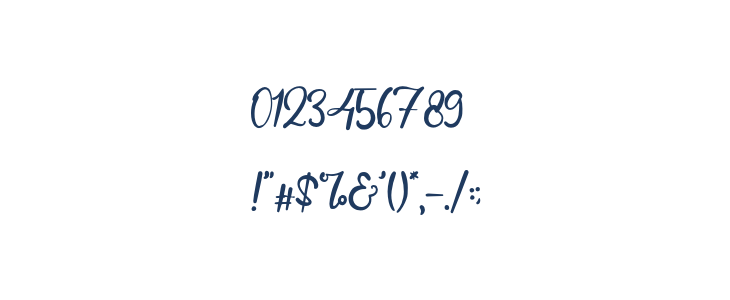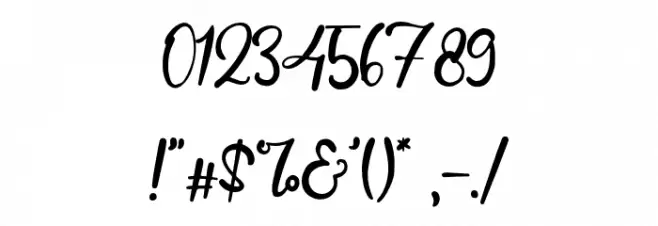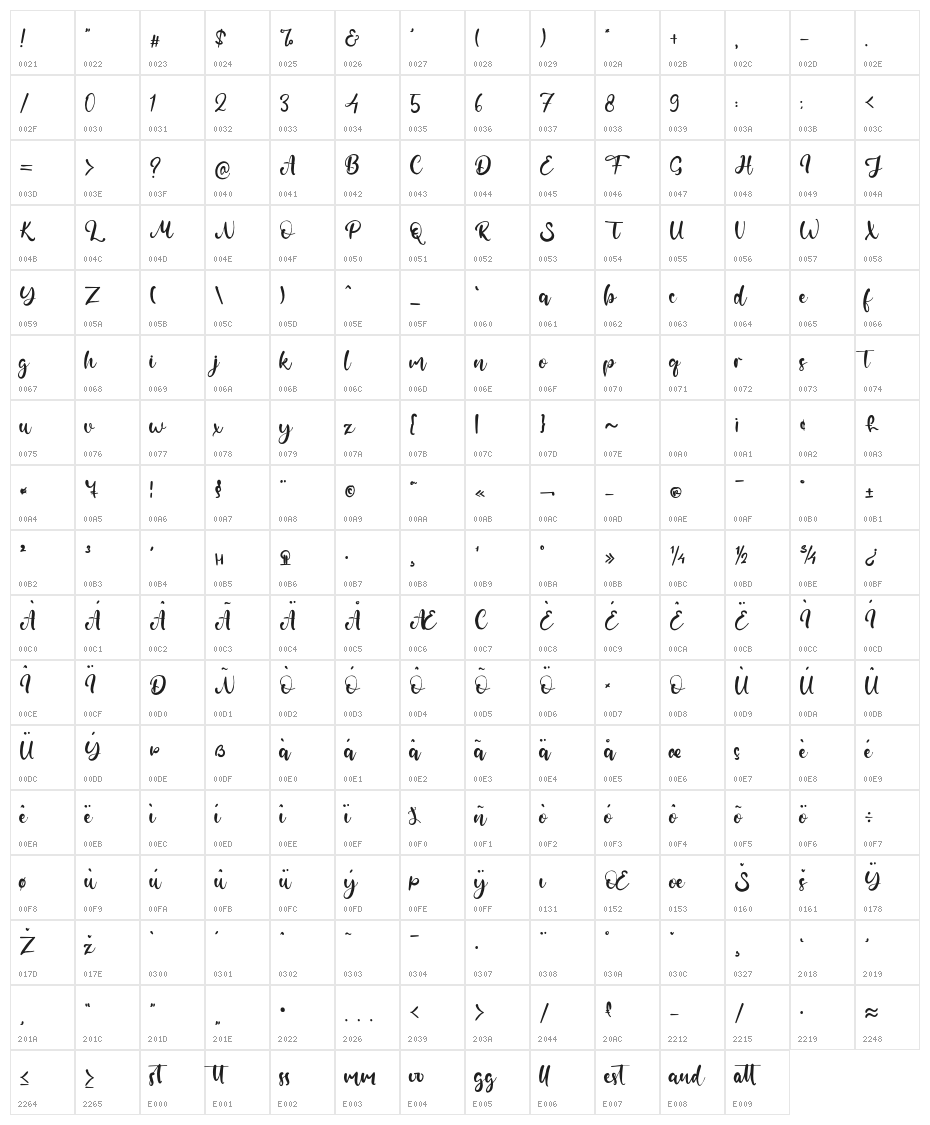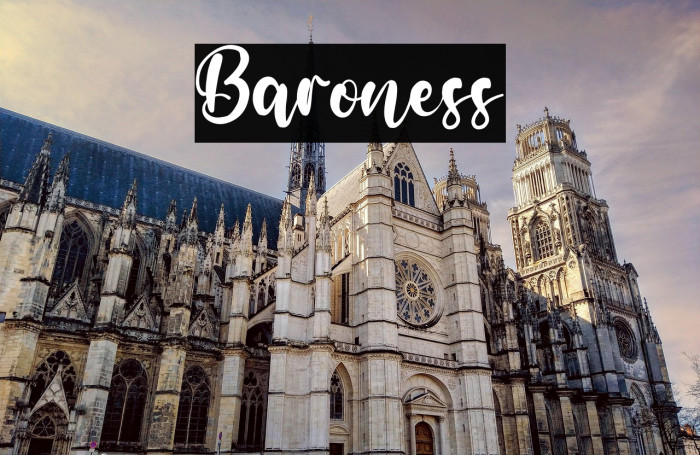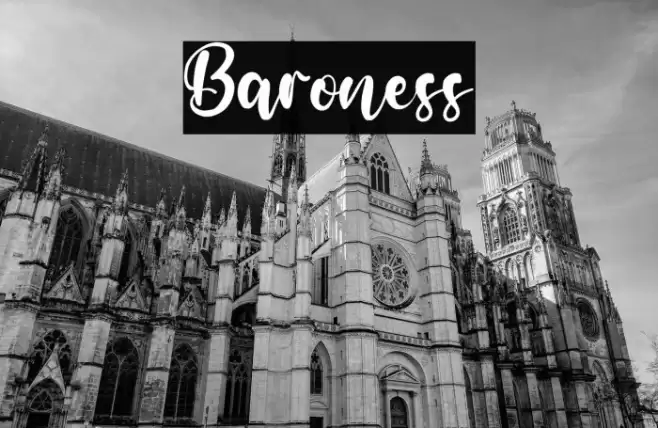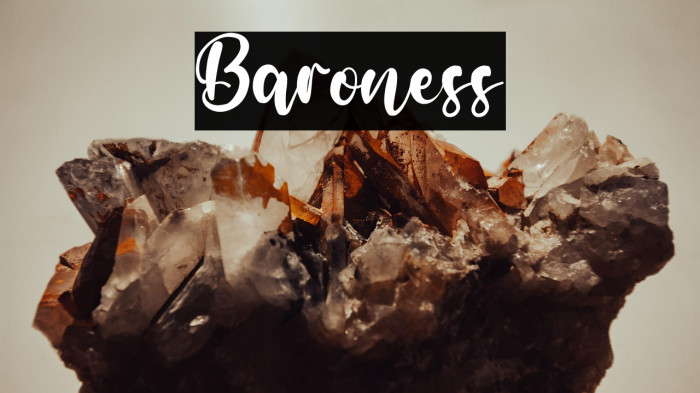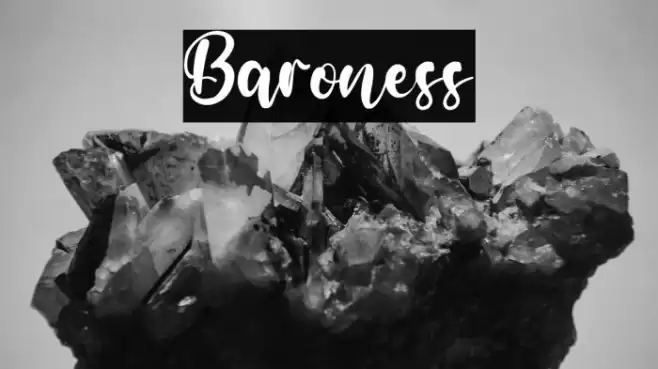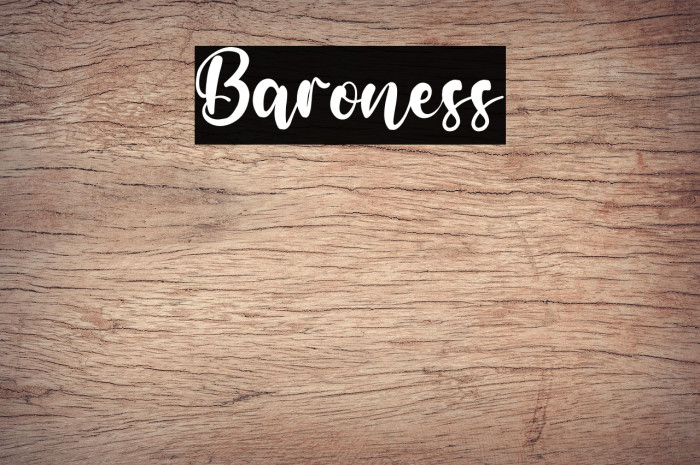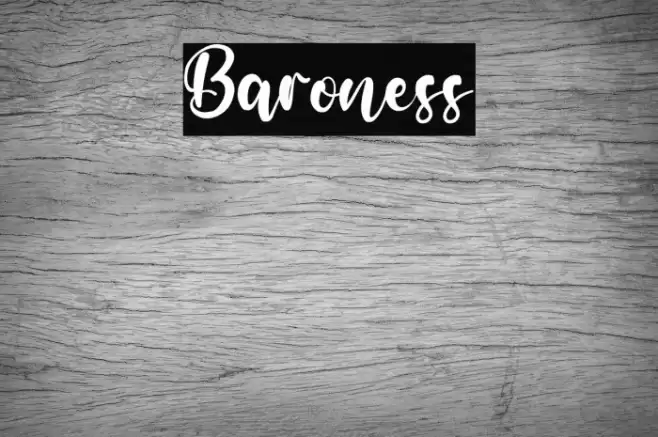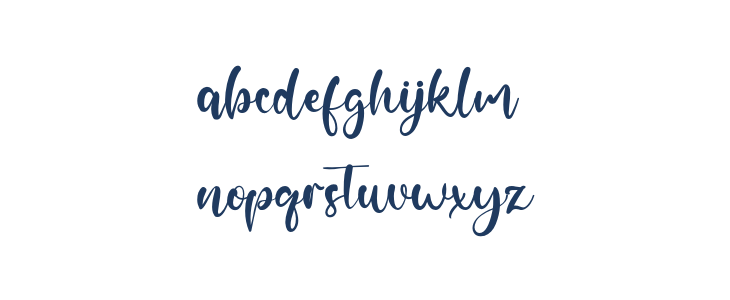
Baroness Font
Baroness Description
This font exudes a charming and elegant script style, characterized by its flowing, cursive letterforms that mimic the fluidity of handwriting. The uppercase letters are ornate, with graceful loops and swashes that add a touch of sophistication. The lowercase letters maintain a consistent style, with smooth curves and a slightly playful demeanor. The numerals are clear and legible, complementing the overall aesthetic. Special characters are crafted with the same attention to detail, ensuring a cohesive look throughout. This font is ideal for projects that require a personal touch, such as invitations, greeting cards, or branding materials.
| Use Case | Logos, Invitations, Greeting cards |
| Proposed Projects | Ideal for wedding invitations, greeting cards, personal branding, and elegant packaging designs. |